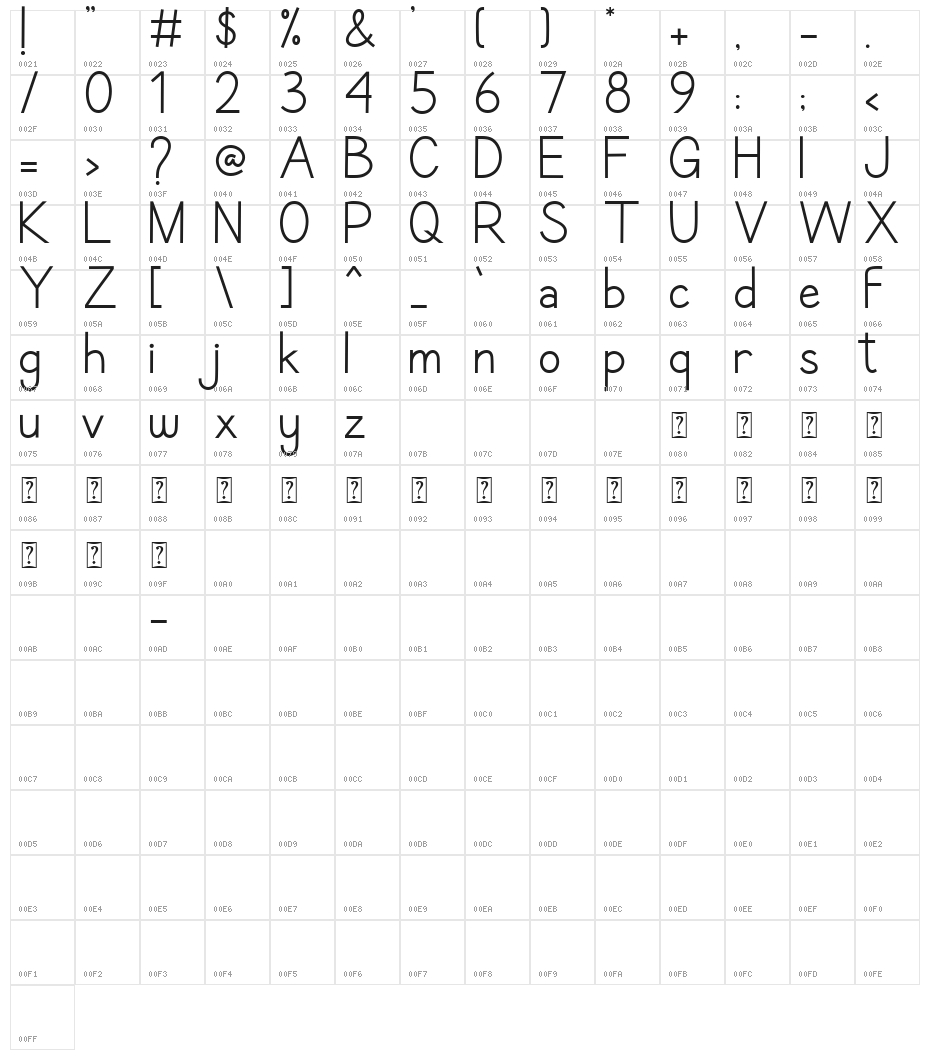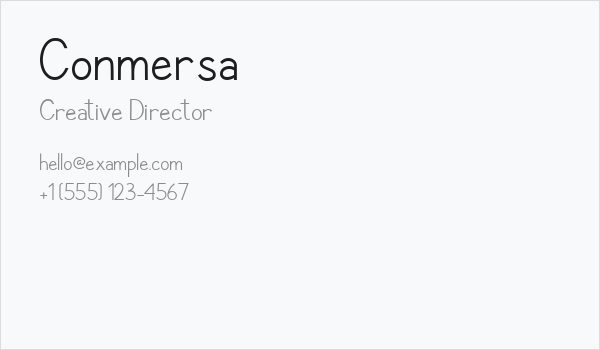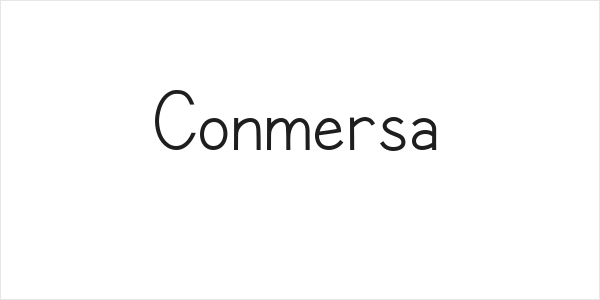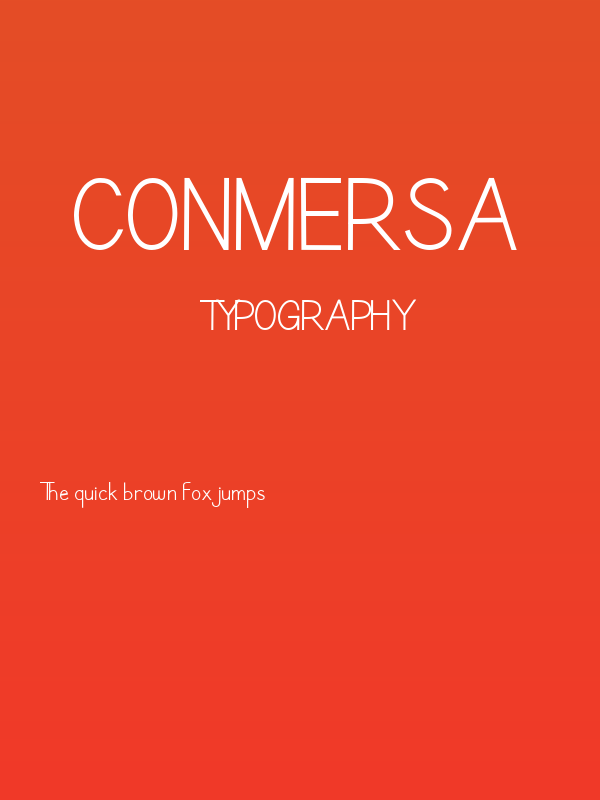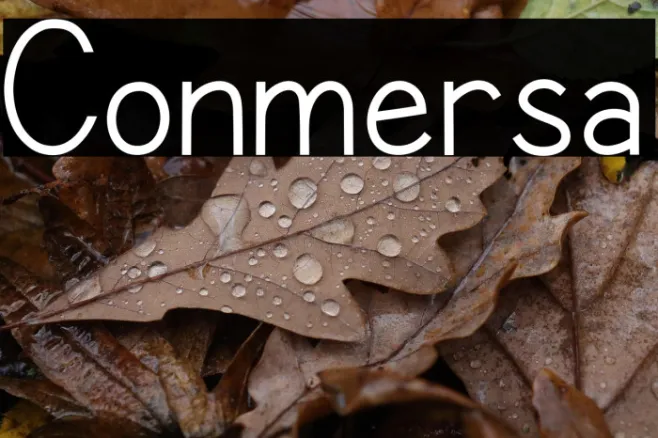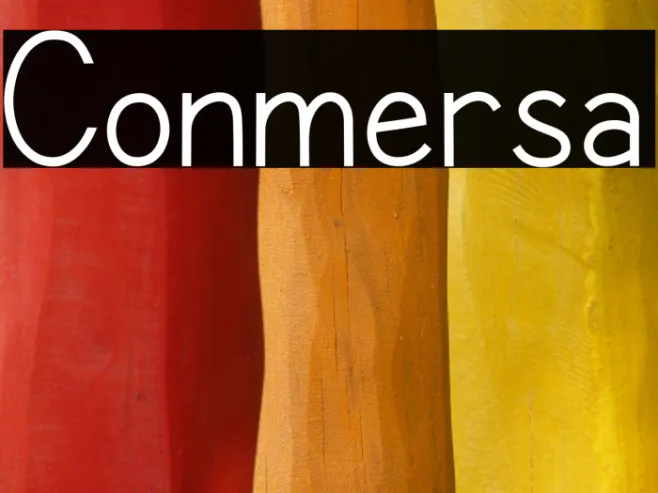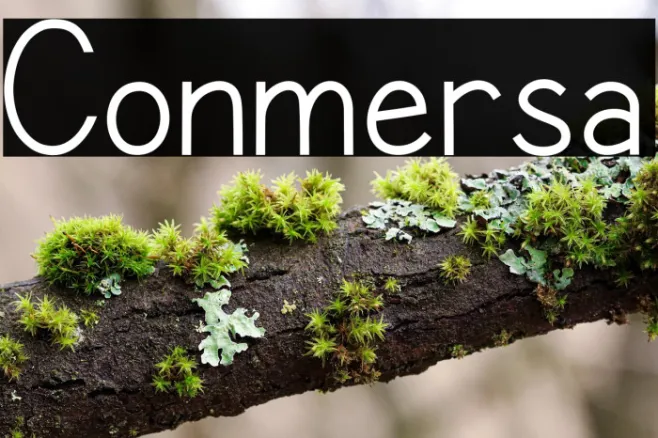
Conmersa Font
Conmersa Description
This font features a clean and modern sans-serif style with a geometric structure. The characters are evenly spaced, providing a balanced and harmonious appearance. The uppercase letters are tall and slightly narrow, while the lowercase letters maintain a consistent height, contributing to a uniform look. The numerals are clear and legible, making them suitable for various applications. Special characters are distinct and well-defined, ensuring versatility in design projects. The overall design is sleek and contemporary, making it ideal for modern branding and digital interfaces.
| Proposed Projects | Ideal for branding, digital interfaces, advertising, and editorial design. |